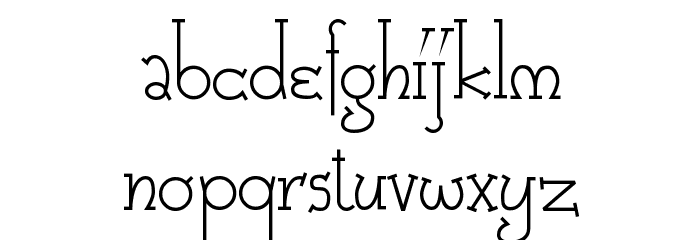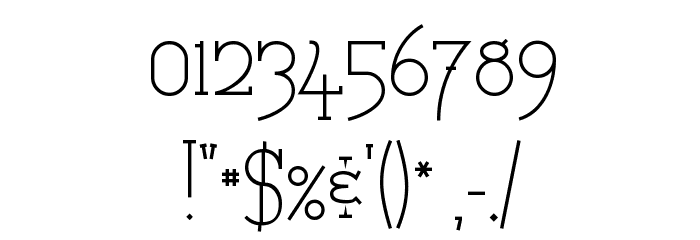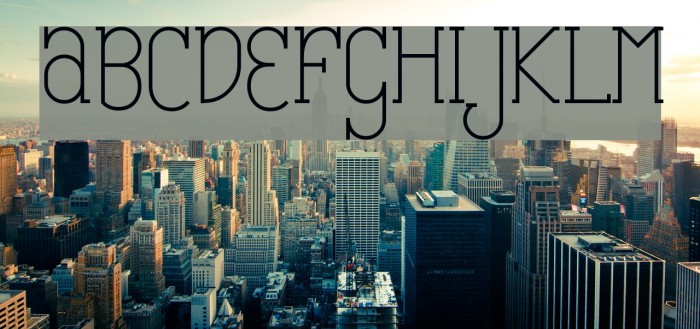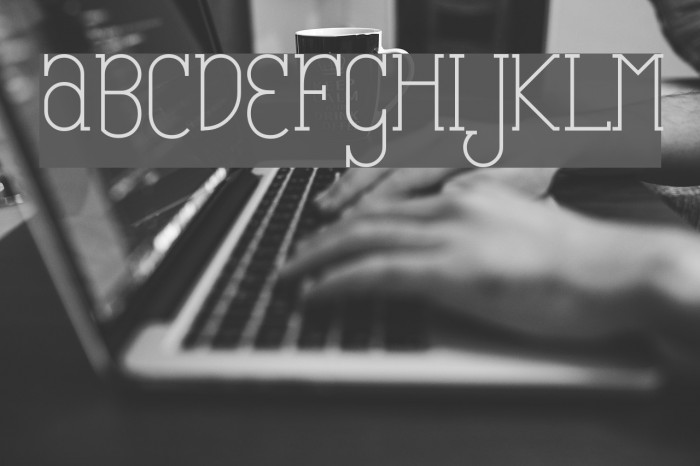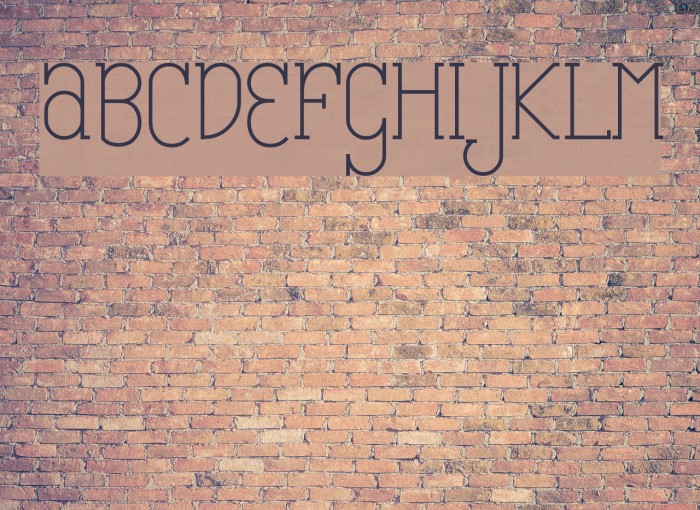
Catharsis Macchiato Font
This font features a unique blend of modern and decorative elements, characterized by its tall, slender letterforms and subtle curves. The uppercase letters exhibit a distinct geometric style with elongated verticals and minimal serifs, giving it a sophisticated and elegant appearance. The lowercase letters maintain a consistent style, with some playful loops and swashes that add a touch of whimsy. The numerals are well-proportioned, matching the overall aesthetic of the alphabet. Special characters are designed with the same attention to detail, ensuring a cohesive look across all glyphs. This font's clean lines and artistic flair make it suitable for a variety of creative applications.
A modern, decorative font with tall, slender letterforms and subtle curves.
- Proposed Projects: Ideal for branding, invitations, posters, and editorial design where a touch of elegance and creativity is desired.
- Overall Style: Modern, Decorative
- Use Case: Headlines, Logos, Invitations